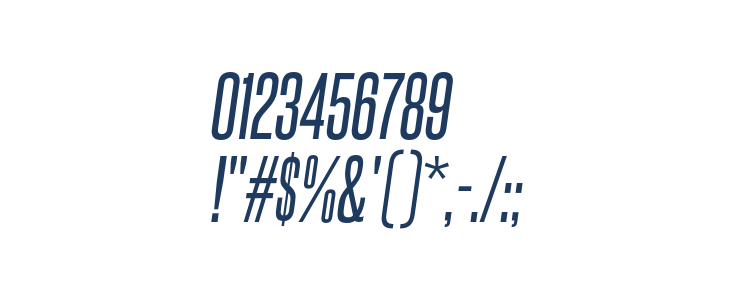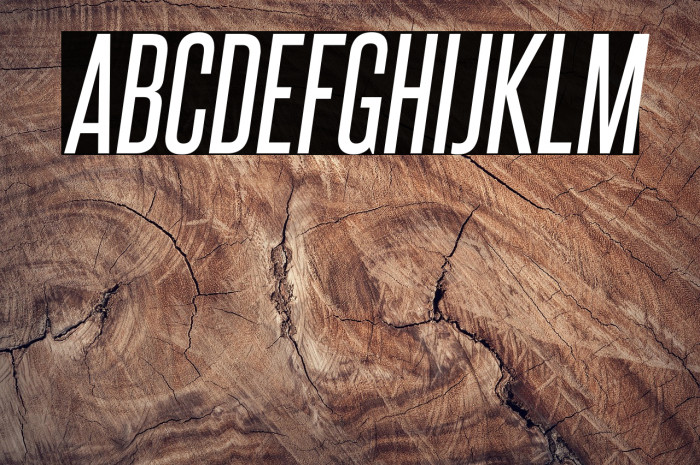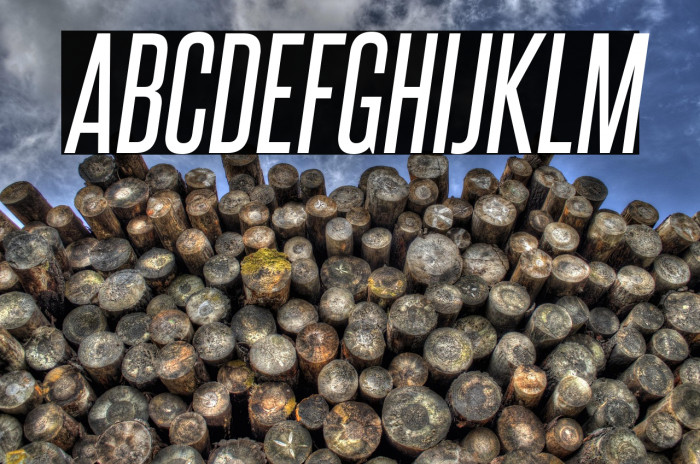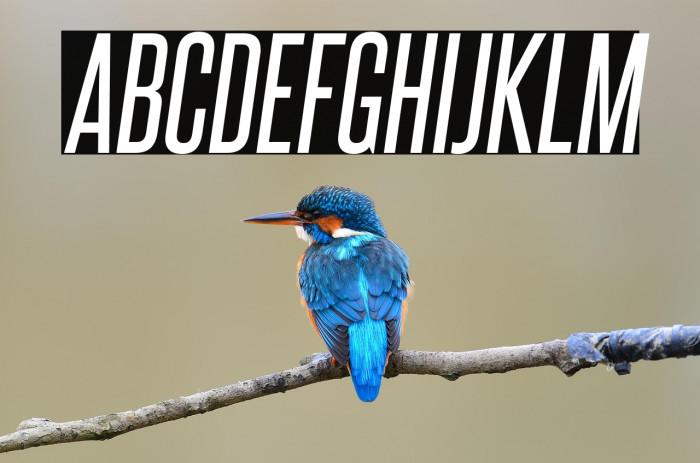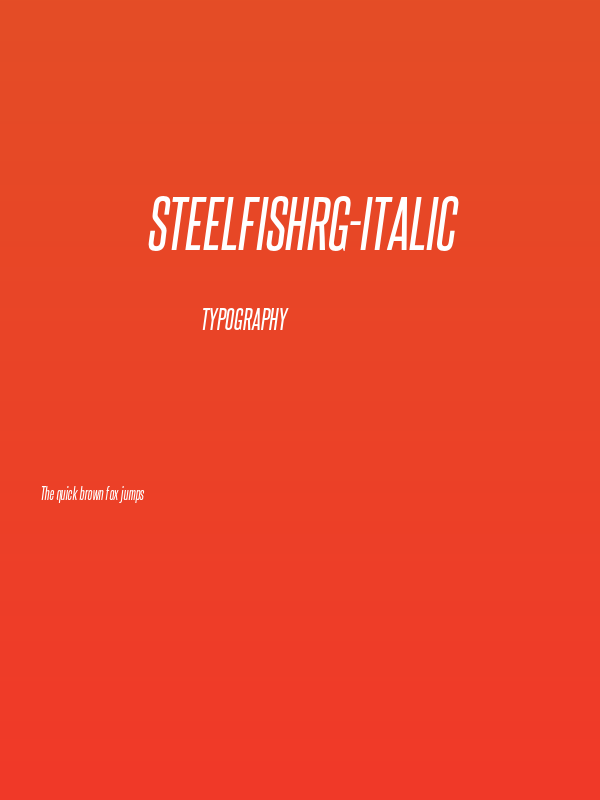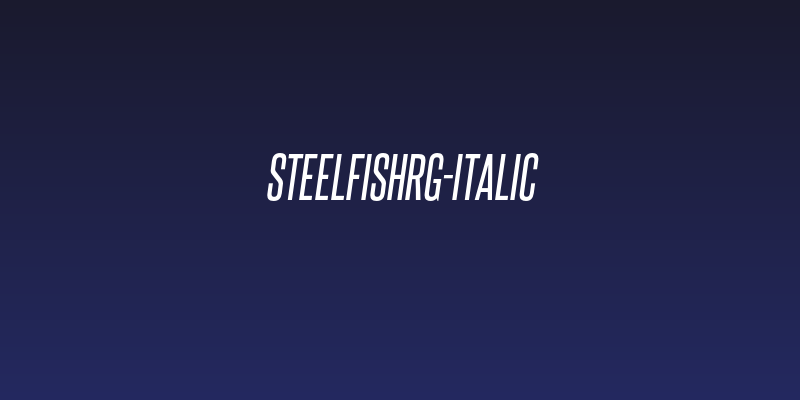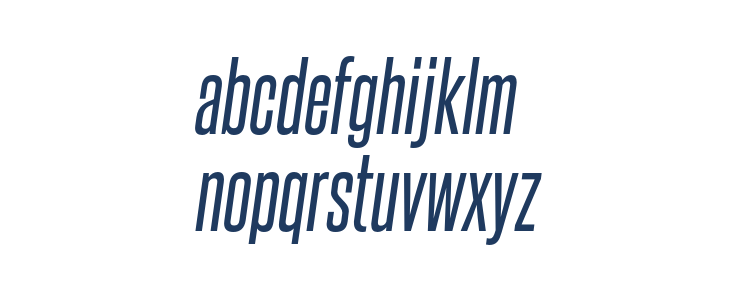
SteelfishRg-Italic Font
SteelfishRg-Italic Description
This font features a tall, narrow design with a distinct italic slant, giving it a dynamic and modern appearance. The characters are elongated and condensed, creating a sleek and streamlined look. The uppercase and lowercase letters maintain a consistent style, with sharp edges and clean lines. The numerals are similarly styled, ensuring uniformity across all characters. The special characters are well-integrated, matching the overall aesthetic of the font. This typeface is ideal for projects that require a bold and contemporary touch, while still maintaining readability and elegance.
Proposed ProjectsIdeal for branding, advertising, posters, and headlines that require a modern and impactful look.